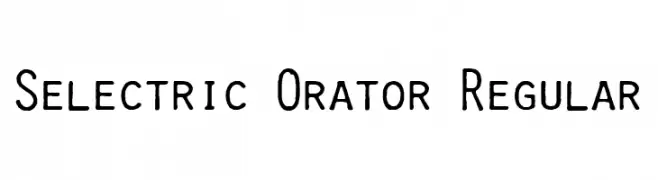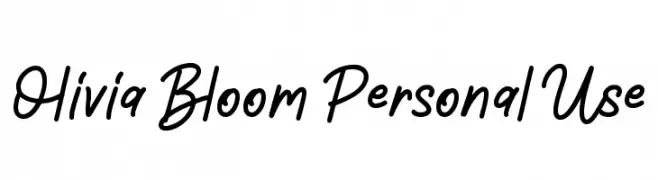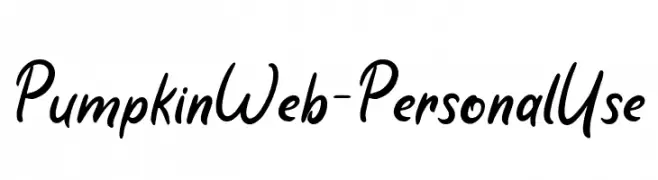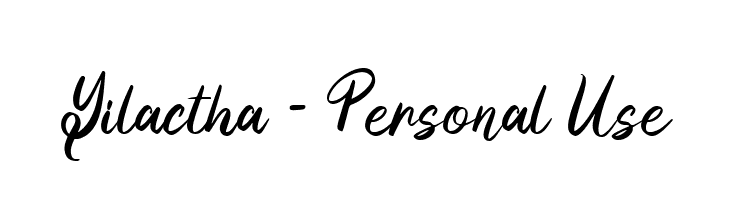
A modern, geometric font with elongated, narrow characters and a sleek design.
A vintage typewriter-style font with rounded edges and a handcrafted look.
A graceful and elegant script font with flowing cursive letters.
An elegant script font with flowing, cursive letterforms and high contrast.
A classic, elegant script font with flowing, cursive letterforms.
A tall, narrow serif font with high contrast and elegant, classic styling.
A dynamic, angular font with a modern, edgy style.
A bold, brush-style font with high contrast and dynamic character shapes.
A lively and flowing script font with a natural handwritten style.
A lively and dynamic script font with fluid, cursive letterforms.